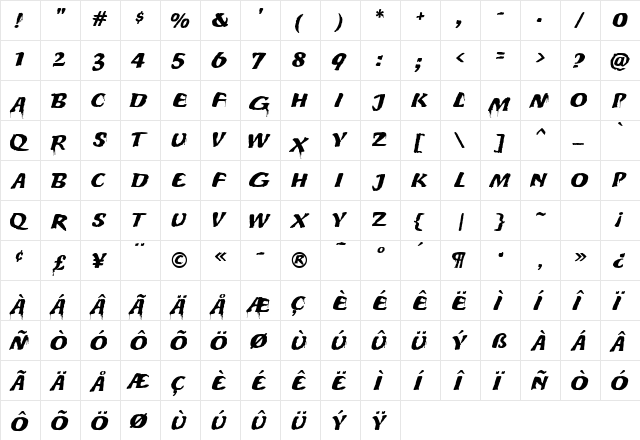
Protest Sign MF Regular
Design Context for Protest Sign MF Typeface
Protest Sign MF is a composed and adaptable typeface that performs quietly and consistently across a wide range of design contexts.
Pro Tip: Use Protest Sign MF in both headline and body roles to test its range before committing to a single application.